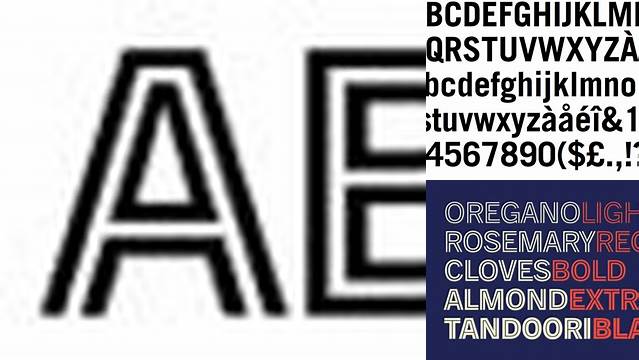
Trade Gothic Inline Bold Font Free Download Guide
Trade Gothic Inline Bold Font: Your Ultimate Free Download Guide
Trade Gothic Inline Bold is a variation of the popular Trade Gothic font family. What makes it stand out is its unique inline design – think of it as the regular Trade Gothic, but with a thin line running through the middle of each letter. This creates a cool, edgy look that's perfect for grabbing attention. It's bold, it's stylish, and it's incredibly versatile. You can use it for headlines, titles, or even short blocks of text where you want to make a statement. The font's clean lines and distinctive style also make it super readable, which is a huge plus when it comes to design.
Exploring the Characteristics of Trade Gothic Inline Bold
Alright, let's talk about what makes Trade Gothic Inline Bold so special. This font isn't just about looks; it's also about functionality. Its inline design gives it a modern and sophisticated vibe, making it a perfect choice for designs that need a touch of elegance. The bold weight ensures that your text stands out, making it ideal for headings, logos, and any design elements that need to catch the eye. The clean, geometric shapes of the letters make it easy to read, even at smaller sizes. It's a great choice if you are looking to make a statement with your text. This font does a great job of communicating a message clearly.
When you use Trade Gothic Inline Bold, you're making a statement. It says that you're modern, stylish, and that you know your design. The font's versatility means it works well in a variety of contexts. Whether you're designing a website, creating a logo, or working on print materials, Trade Gothic Inline Bold can help you achieve the look you want. It's also a great choice for those who want to showcase a professional look. The font's simplicity makes it suitable for a wide range of projects, from corporate branding to personal projects. This allows it to fit seamlessly into a variety of designs, without overwhelming the other elements. This is one of the reasons why the font is so beloved.
One of the best things about Trade Gothic Inline Bold is its versatility. You can use it for a wide range of design projects. It works great for websites, logos, and print materials. Need a headline that grabs attention? Trade Gothic Inline Bold has your back. Want a logo that's both modern and memorable? This font is an excellent choice. Need some text for a poster, flyer, or brochure? Trade Gothic Inline Bold offers great readability and impact. The font's clean design makes it suitable for various design styles. This is a good font to add to your collection, due to its versatility. This font also pairs well with other fonts. Its geometric shapes create an eye-catching look for your designs.